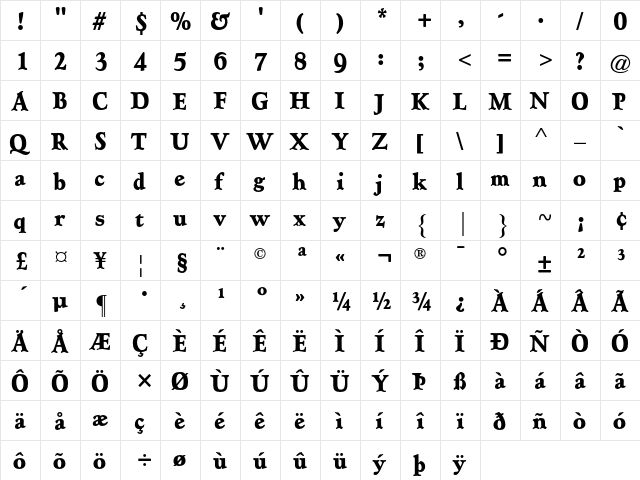
Hadriano AT ExtraBold Cond Regular
Design Context for Hadriano AT ExtraBold Cond Typeface
Hadriano AT ExtraBold Cond is a composed and adaptable typeface that performs quietly and consistently across a wide range of design contexts. Its bold stroke weight gives it real presence on the page. The condensed width makes it efficient for tight spaces without sacrificing legibility.